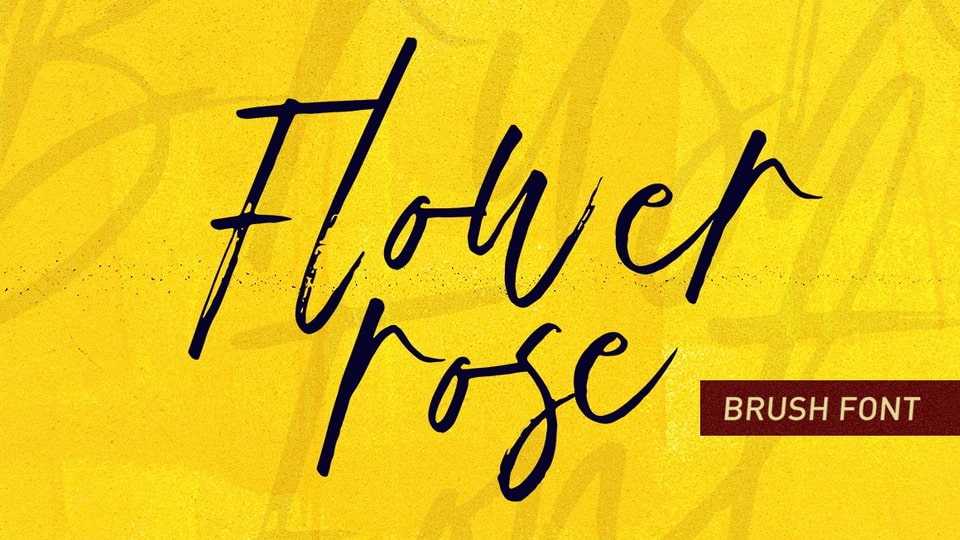
Download Flower Rose font, a modern and interesting handwritten brush typeface. Masterfully designed to become a true favorite, this font has the potential to bring each of your creative ideas to the highest level!